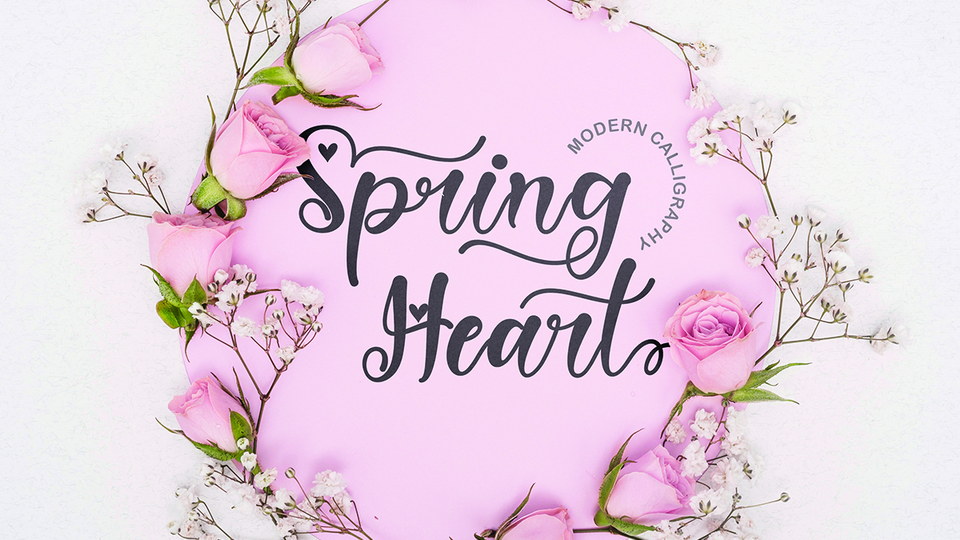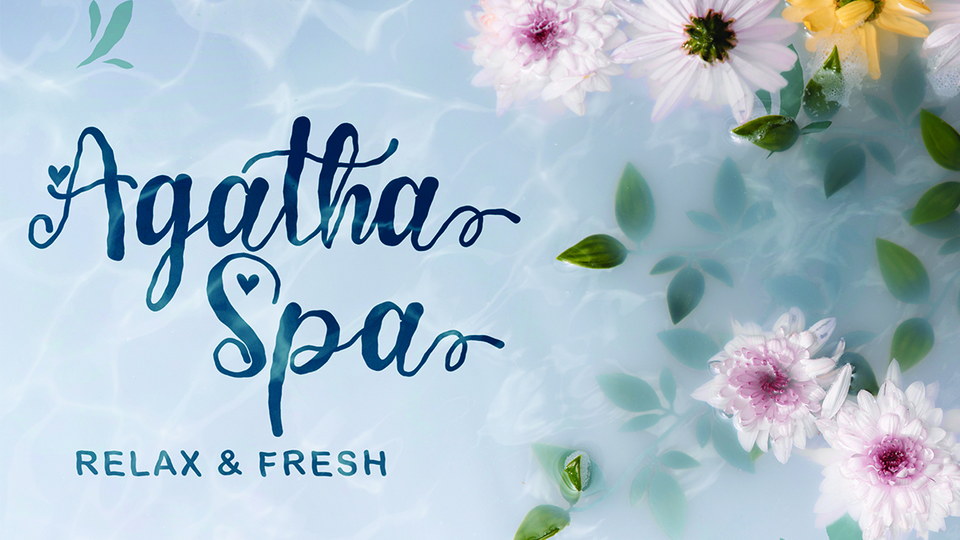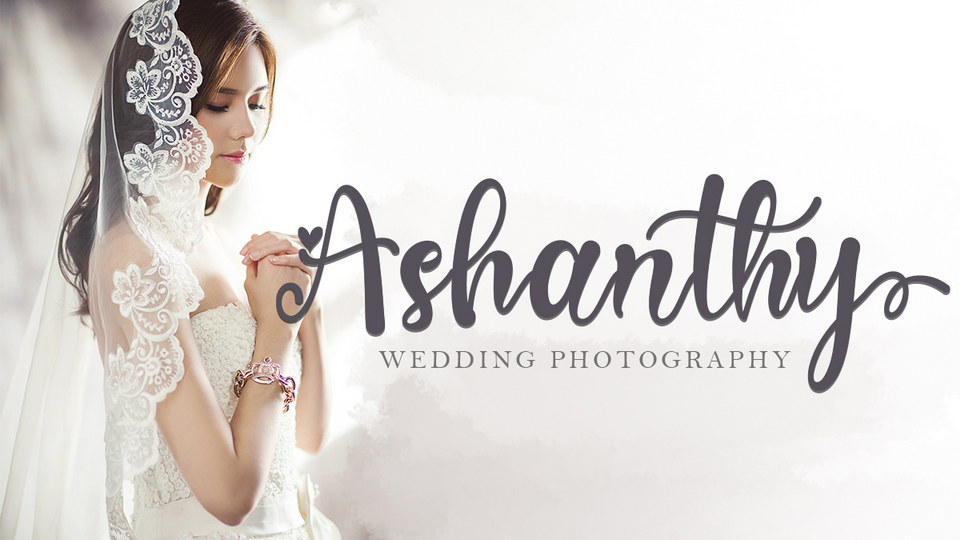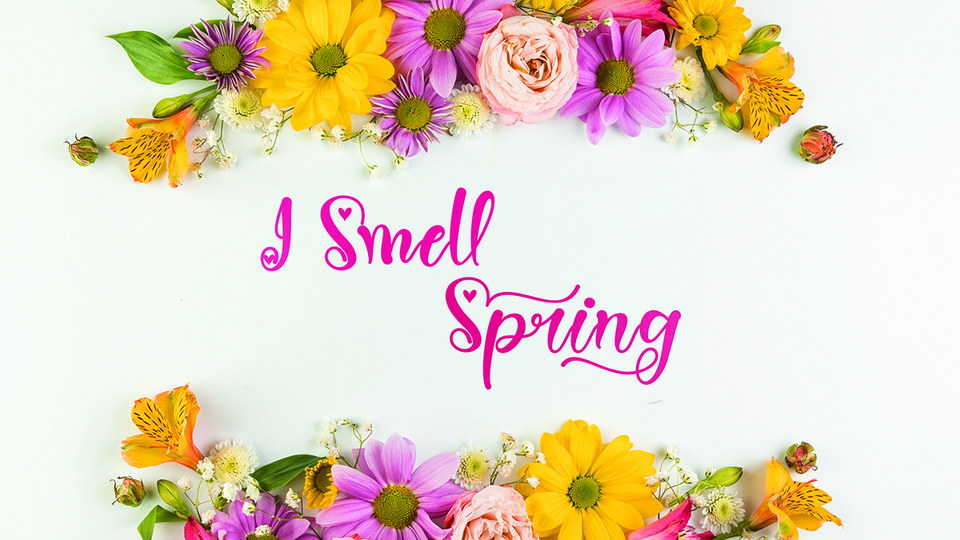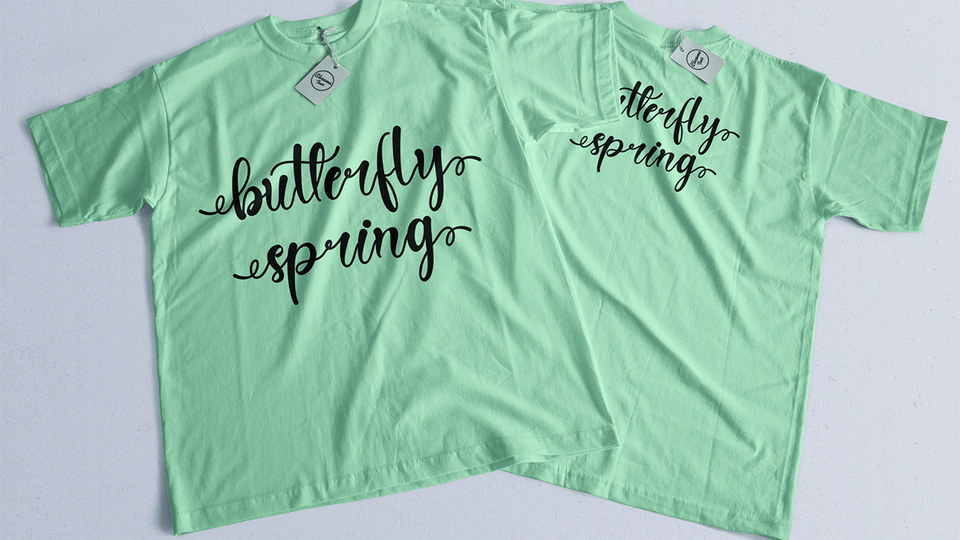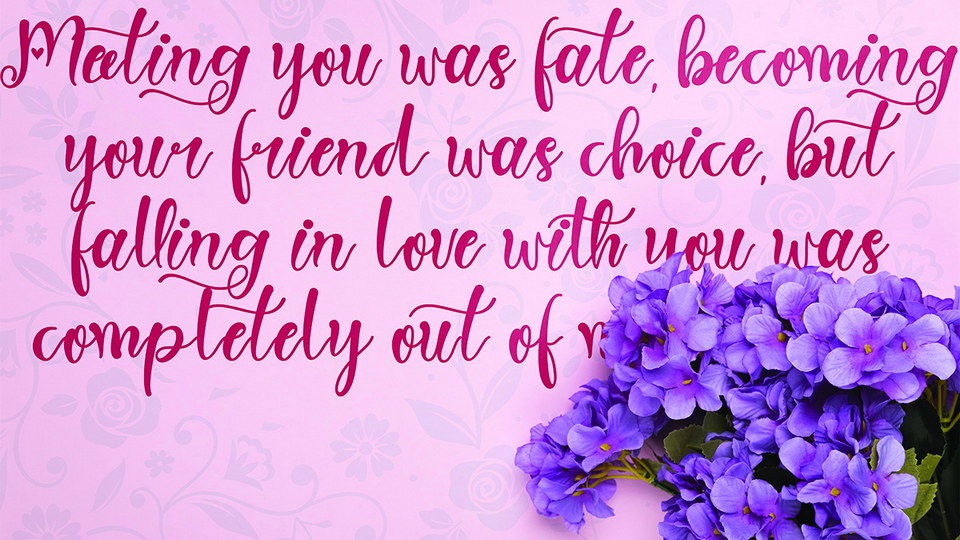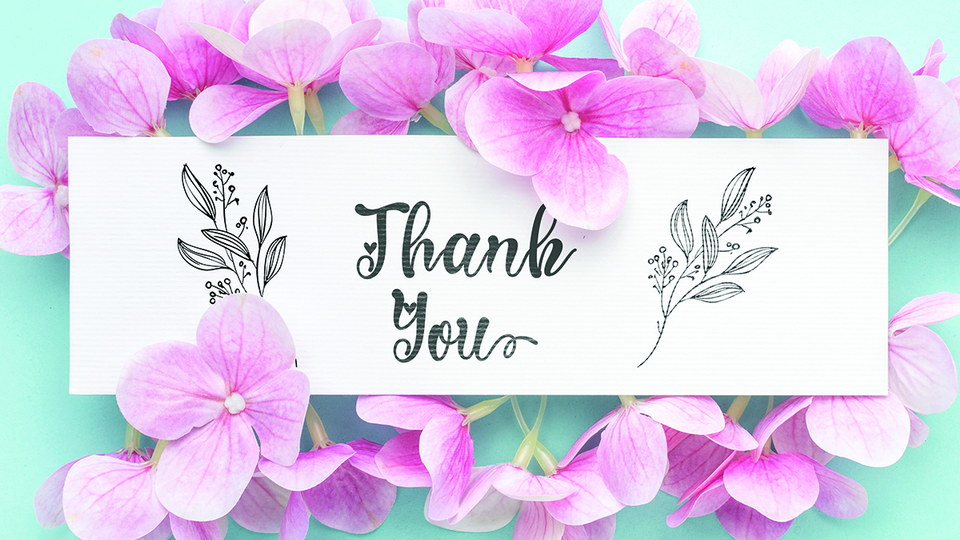
Spring Heart is a very beautiful, unique calligraphy font, which combines spring and a cozy heart. The embellishments on the letters are very easy to use, and besides that, there are instructions on how to use them as well.
Spring Heart font is perfect for spring, wedding, mother day, father day, Patrick day, Easter, earth day, and other projects.